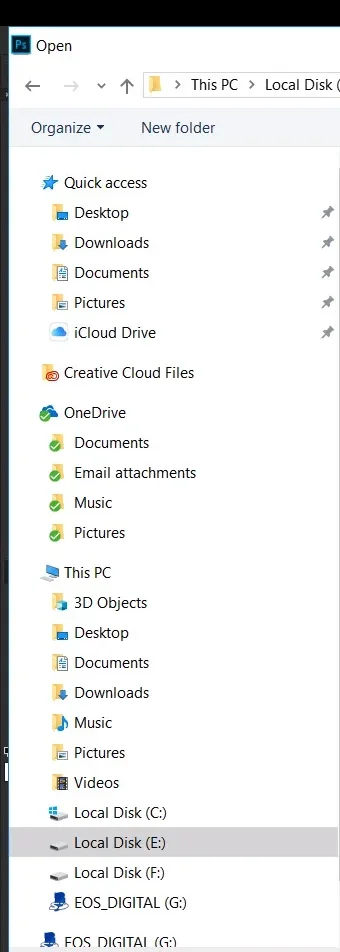
Windows 10 Windows font appearance "problem"
Hello, I was watching some dude on YouTube and he showed his screen and I saw he has much prettier font, I just want to know how he did it.
First picture is his screen, second picture is mine
It's not so big difference, but his screen looks so much "cleaner"
Are you sure that they are the same version of Windows? The whole layout of the top bar seems to be different.
But you can change the font to anything that you want.
The two fonts in you images are very similar maybe a condensed and non condensed version of the same font, Maybe one is just a little bigger than the other, and one image is clearer then the other making the weight look different.